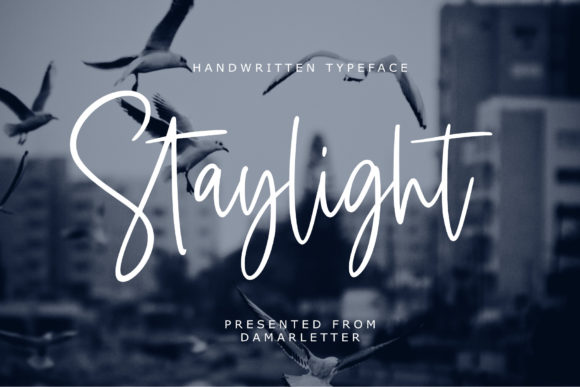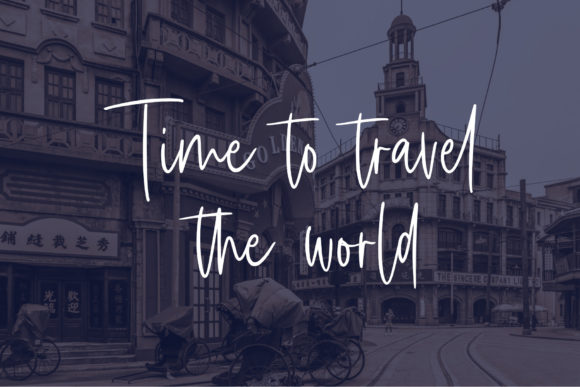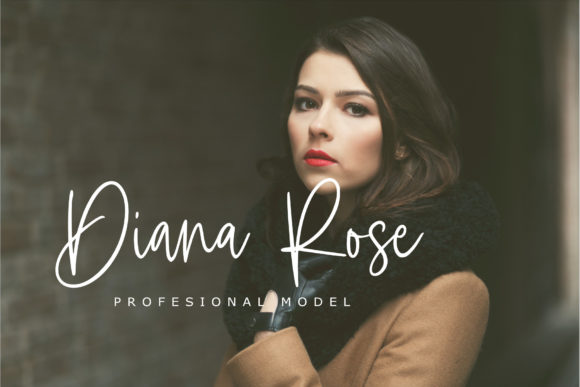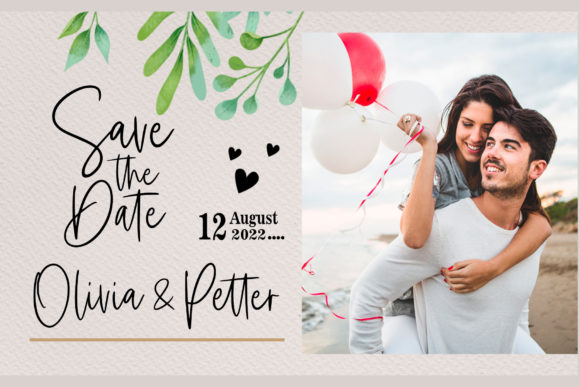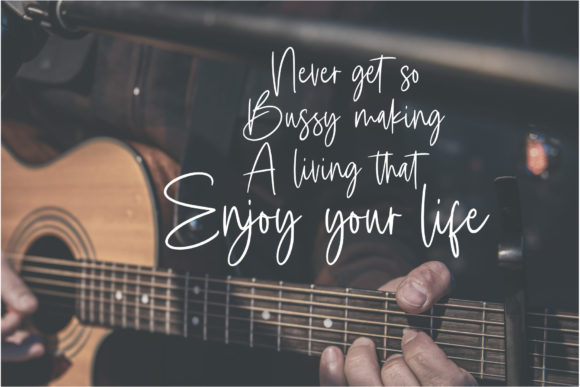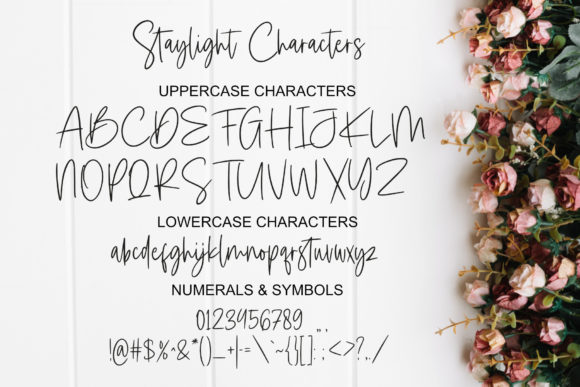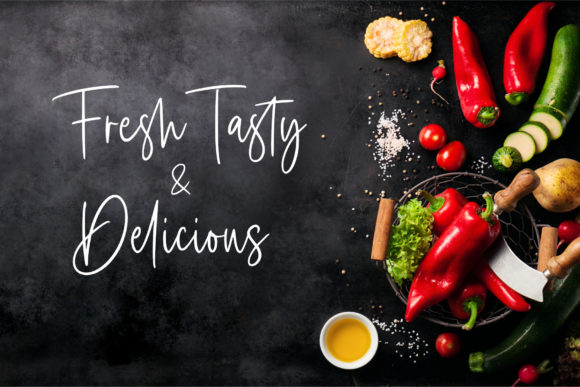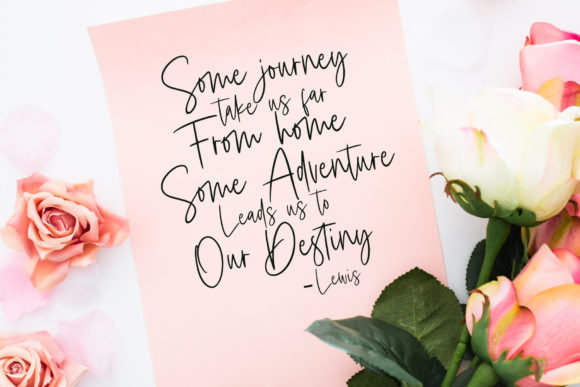
Staylight Font
About Staylight Font
Introducing Staylight, a fashionable signature-style script font. This font is characterized by its elegant, classy, and stylish appearance, which creates a sense of luxury. It’s not just a font, it’s a tool that brings your designs to life.
The characters in Staylight are designed to look as close to a natural handwritten script as possible, adding a touch of personality to your designs. The font also includes PUA encoding, giving you the flexibility to access all glyphs and ligatures with ease and customize your text to suit your design needs.
Staylight is versatile and can be used in a variety of design projects. It’s perfect for branding projects, where its stylish and elegant style adds a touch of sophistication. It’s also great for logos, where its unique style can help establish a strong brand identity.
For wedding designs, Staylight stands out. Its stylish script adds a personal touch, making the designs more relatable and impactful. Similarly, it’s a great choice for social media posts, where its stylish script can catch the eye and engage your audience.
For advertisements, Staylight is a game-changer. Its unique style can make your ads stand out and leave a lasting impression. It’s also perfect for product packaging and product designs, where its stylish script can add a touch of elegance.
In conclusion, Staylight is more than just a font. It’s a design asset that can elevate your work and make it stunning. Whether you’re designing a logo, crafting a social media post, or creating a movie title, Staylight can help you achieve your design goals. So why wait? Start creating stunning work with Staylight today!